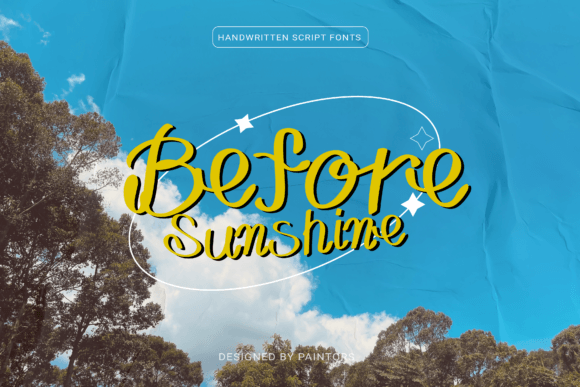
The Perfect Font for a Heartfelt Touch
Who hasn’t been there – staring at a blank page, trying to find the right words to express a special message? Perhaps it’s a birthday invitation, a wedding announcement, or a simple ‘thank you’ note. Whatever the occasion, the right font can make all the difference in conveying the emotions and tone we want to convey.
Enter the Before Sunshine Font, a sweet and casual handwritten font that exudes warmth and approachability. Its gentle curves and soft lines create a welcoming tone, making it perfect for heartfelt messages, invitations, and personal touches. As a designer, having access to the Before Sunshine Font can be a valuable asset in creating unique and meaningful designs that leave a lasting impression.
Before Sunshine Font Key Features
- Unique Characteristics: The Before Sunshine Font features a unique, hand-drawn design with subtle texture and imperfections, giving it a warm and inviting feel.
- Script Support: The font includes full support for Latin script, as well as a range of diacritical marks and special characters, making it suitable for use in a variety of languages.
- Font Metrics: The font’s metrics are carefully designed to ensure optimal readability, with a focus on clear letter spacing and x-height.
Designer Review: Before Sunshine Font
Before Sunshine Font is a beautifully designed font that brings a touch of warmth and optimism to any project. ✨ The rounded edges and soft curves create a friendly and approachable feel, making it perfect for branding and packaging designs.
The font’s unique style is both modern and nostalgic at the same time, which can be a great asset for designers looking to create a unique visual identity. ✨ The font is also highly legible, making it suitable for a wide range of applications, from body text to headlines.
- Rounded edges and soft curves create a friendly and approachable feel
- Unique style is both modern and nostalgic
- Highly legible, suitable for a wide range of applications
- May not be suitable for formal or professional designs
- Some characters may be difficult to read at small font sizes
- Lack of italic and bold styles may limit its versatility
Overall, Before Sunshine Font is a great choice for designers looking to add a touch of warmth and personality to their projects. While it may have some limitations, its unique style and high legibility make it a valuable addition to any design library.
Tips for Getting the Most Out of Before Sunrise Font
Before Sunrise Font is perfect for:
- Creating whimsical and dreamy designs.
- Adding a touch of romance to your designs.
- Creating eye-catching headlines and titles.
Remember to use Before Sunrise Font in moderation to avoid overwhelming your design.
Before Sunrise Font is commonly used in:
- Travel and adventure designs.
Before Sunrise Font is a versatile font that can be
Alternatives to “Before Sunshine Font”
Lato is a clean, modern sans-serif font suitable for various design projects. It’s perfect for use in digital products, web design, and print materials. Lato is a more geometric and minimalist font compared to Before Sunshine Font, which has a more rounded and soft appearance.
Montserrat is a geometric sans-serif font inspired by urban environments. It’s ideal for use in digital products, web design, and advertising materials. Montserrat is a more modern and edgy font compared to Before Sunshine Font, which has a more vintage and elegant feel.